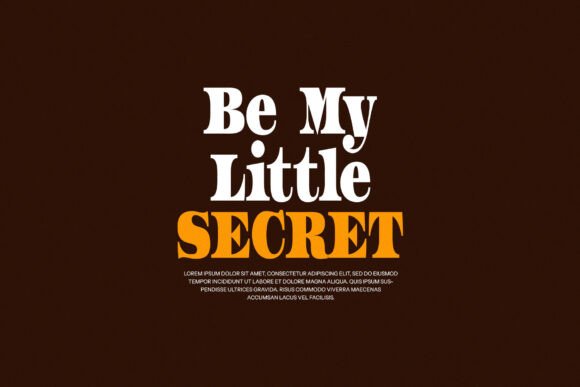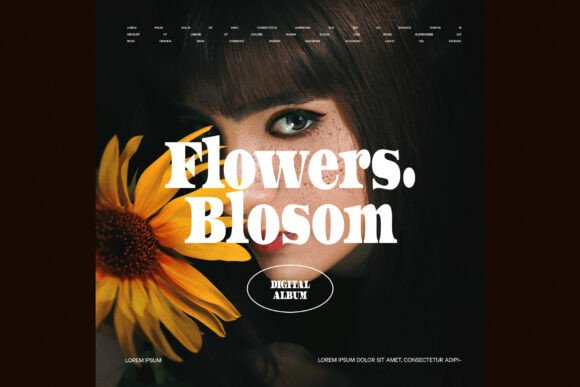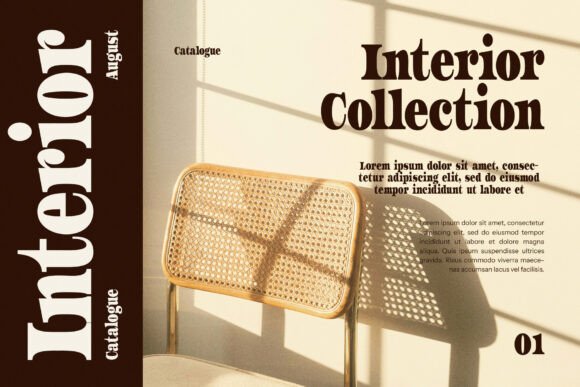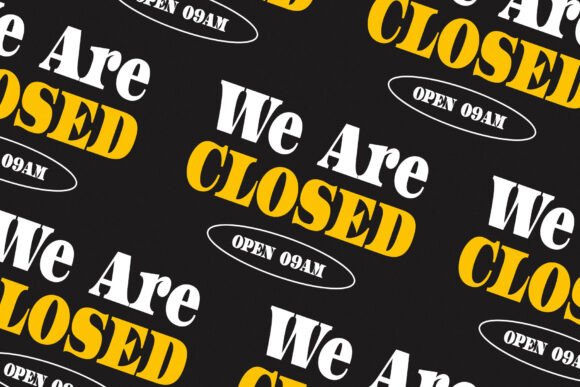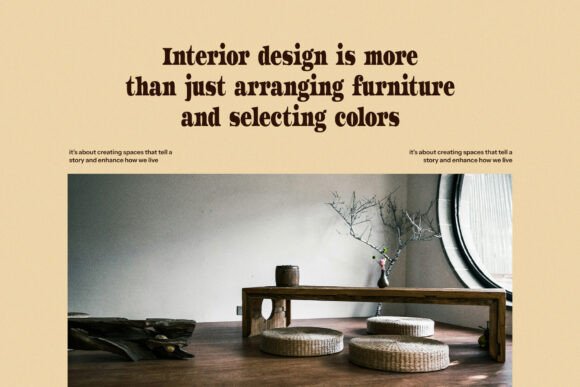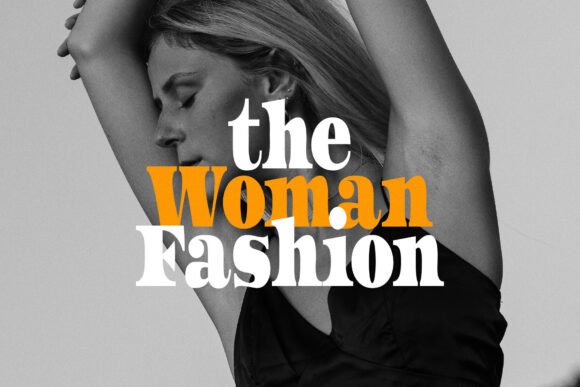
Introduction to Mekinc Font
Mekinc is a vintage serif font that combines classic style with a modern touch.
Its letters have elegant curves and sharp edges, giving it a timeless look Perfect for posters, invitations, and logos, Mekinc adds a nostalgic charm to any design.